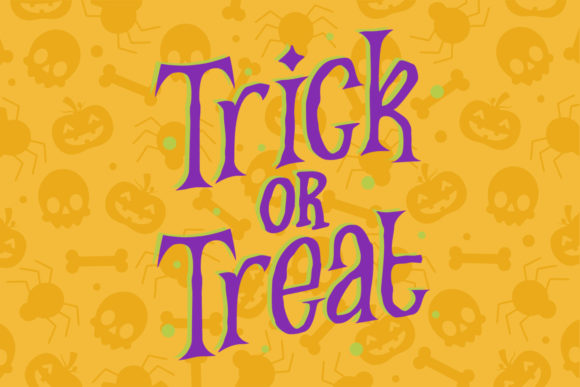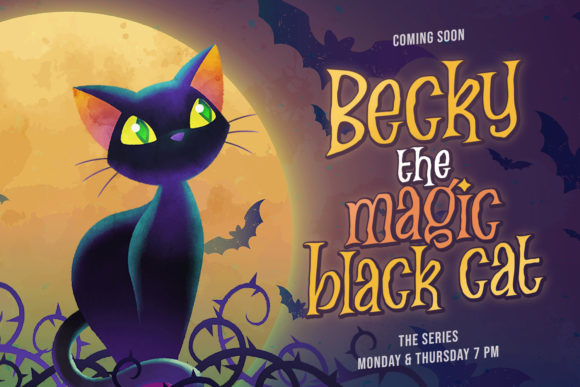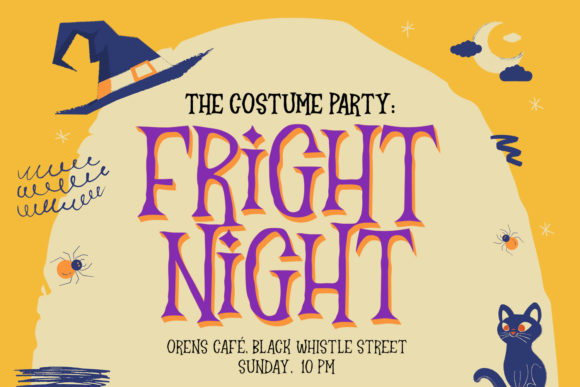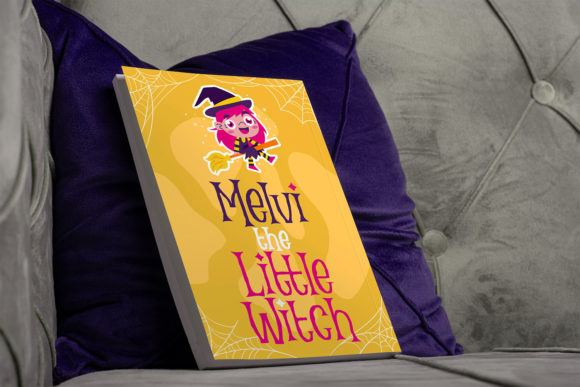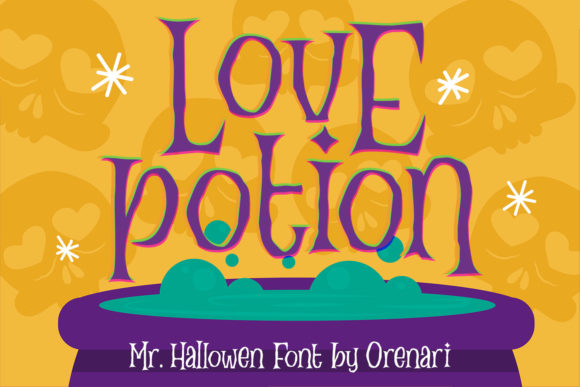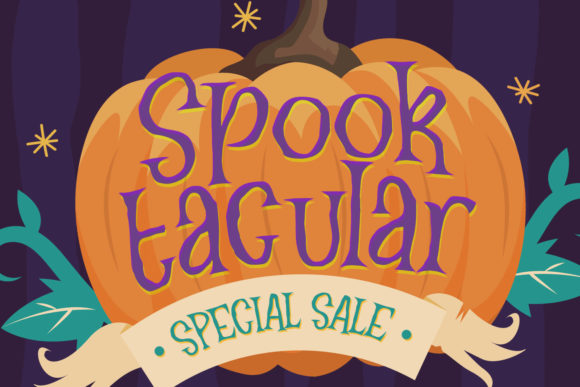
Introduction to Mr Halloween Font
Mr Halloween is a cook and spooky display font.
This font is PUA encoded which means you can access all of the glyphs and swashes with ease Add it confidently to your favorite creations and let yourself be amazed by the outcome generated.
Key Features of Mr Halloween Font